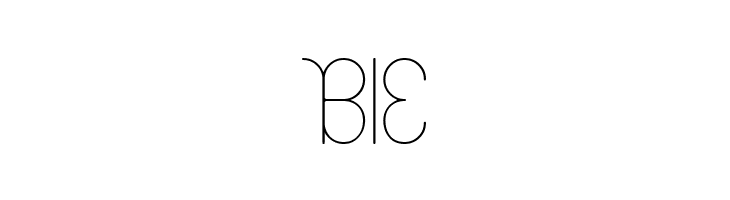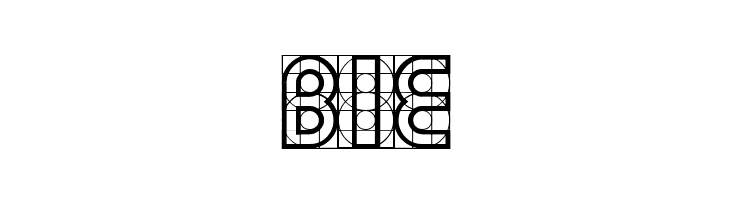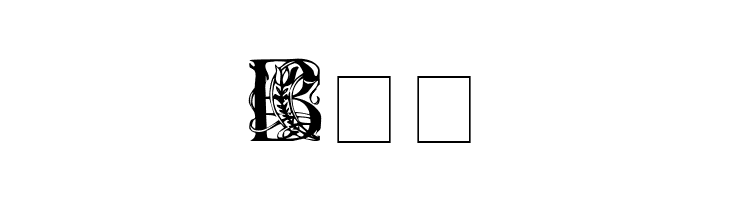
An ornate, calligraphic font with intricate swashes and flourishes.
A bold, rounded font with a modern and playful style.
A modern, rounded sans-serif font with a minimalist design.
An elegant italic font with smooth, flowing letterforms and a sophisticated appearance.
A decorative serif font with elegant swashes and flourishes.
A bold, hand-drawn font with a rugged, vintage feel.
A geometric font with circular and linear elements, offering a modern and structured look.
An ornate and decorative font with intricate swirls and embellishments.